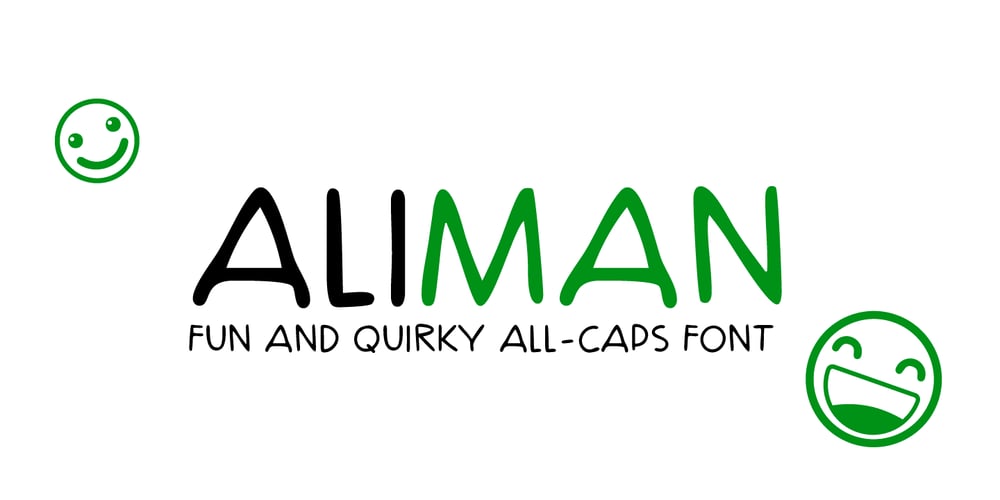
Aliman
Aliman font
Aliman Font Family was designed by Siti Saribanon Nurjannah and published by Cititype. Aliman contains 1 styles and family package options. Aliman is a simple and neat lettered handwritten font. Add this font to your creative ideas and notice how it will make them stand out! All Caps fonts.